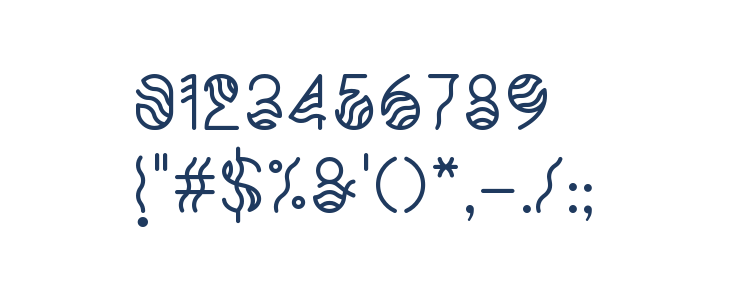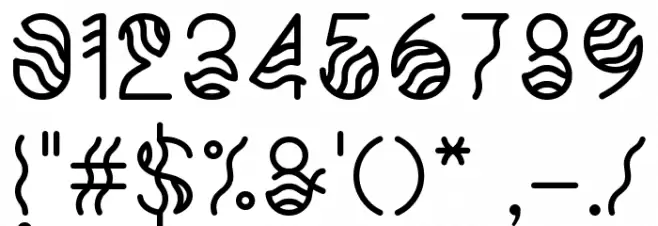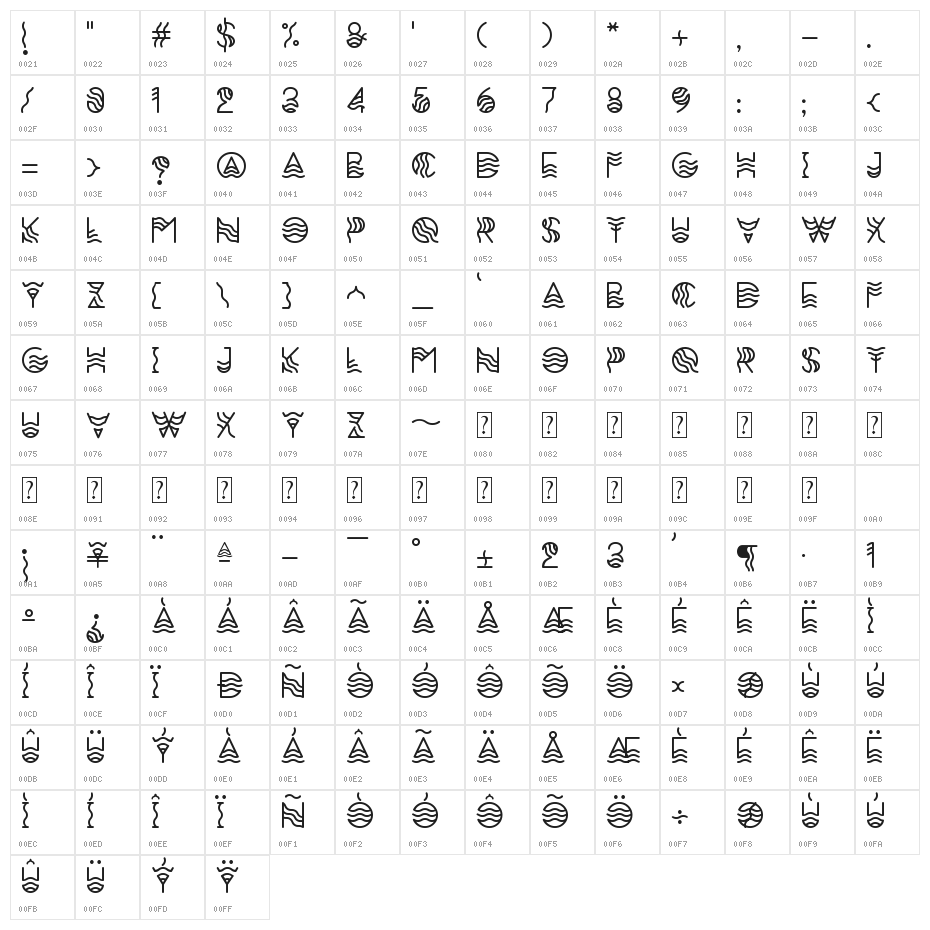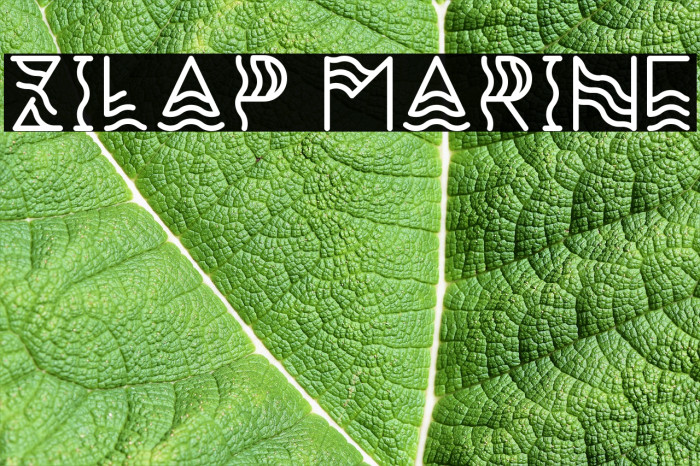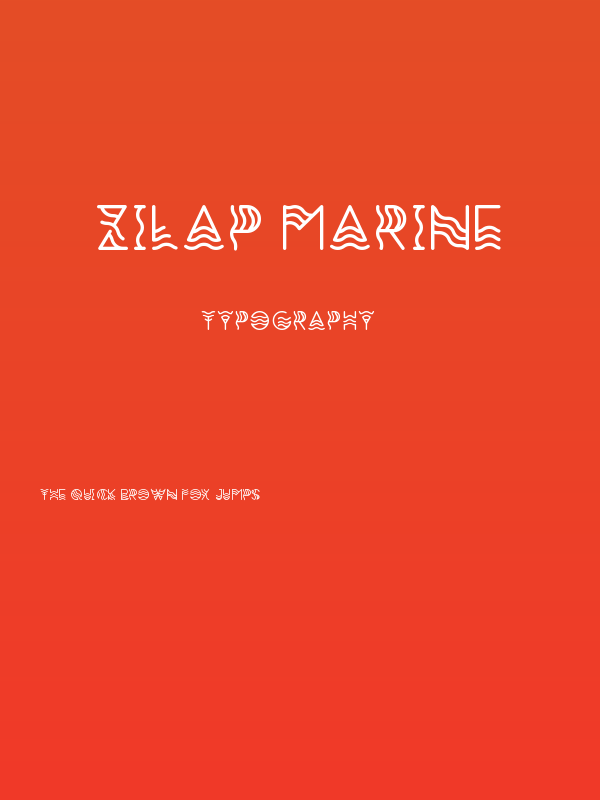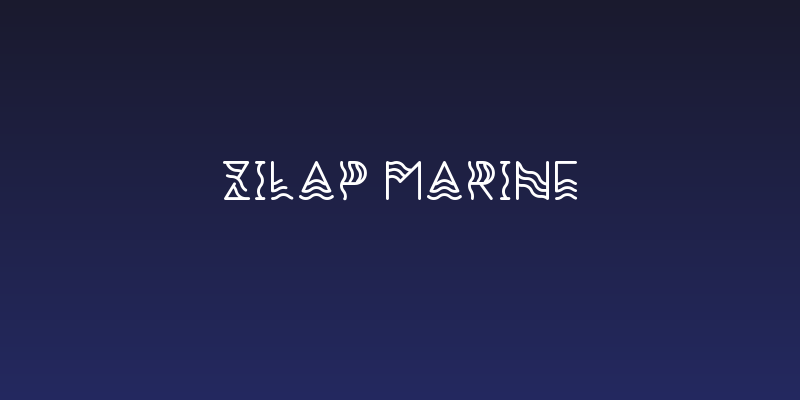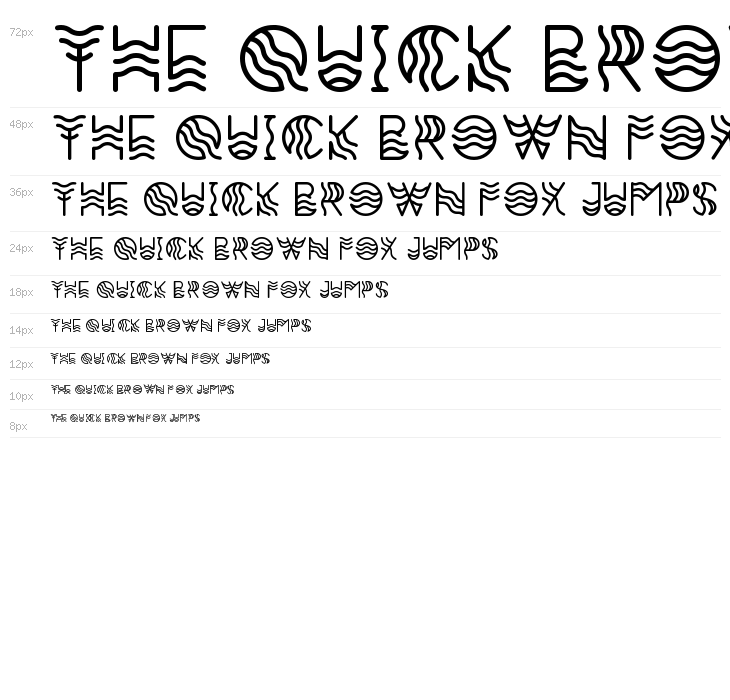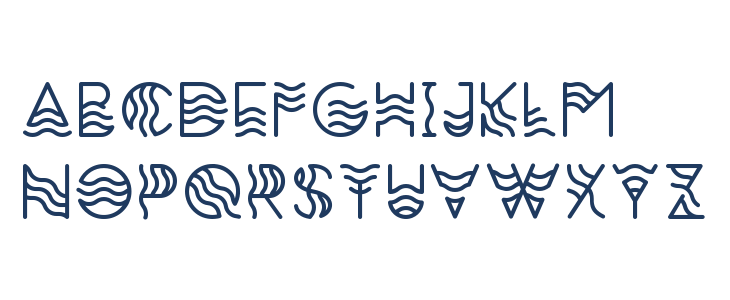
Zilap Marine Font
Zilap Marine Description
This font features a unique and playful design with wavy lines integrated into each character, evoking a sense of movement and fluidity. The uppercase and lowercase letters maintain a consistent style, with bold, clean lines and a modern aesthetic. The numbers and special characters follow the same design principles, ensuring a cohesive look across all elements. This font stands out with its decorative elements, making it ideal for creative and eye-catching projects.